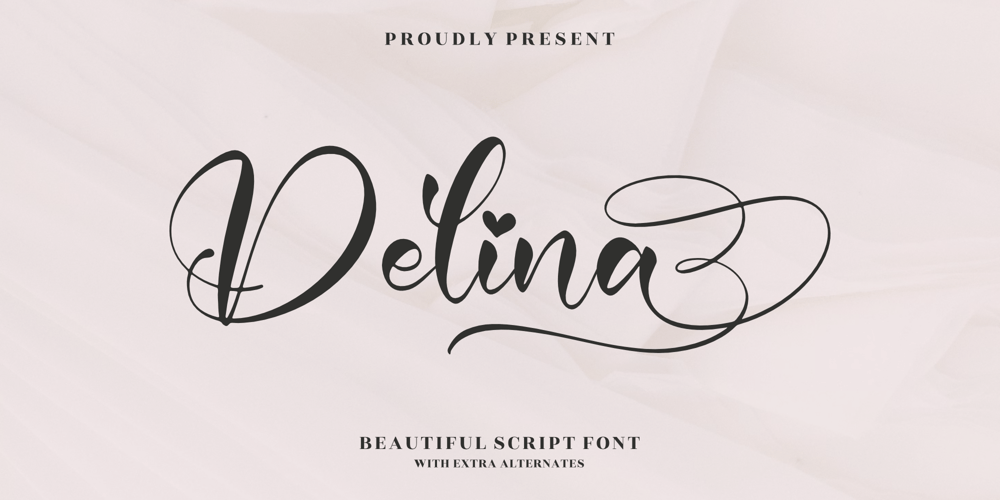
Delina
Delina font
Delina Font Family was designed by Heru Utama Putra and published by Letterena Studios. Delina contains 2 styles and family package options. Delina is a romantic and sweet calligraphy typeface with characters that dance along the baseline. It will add a luxury spark to any design project that you wish to create!